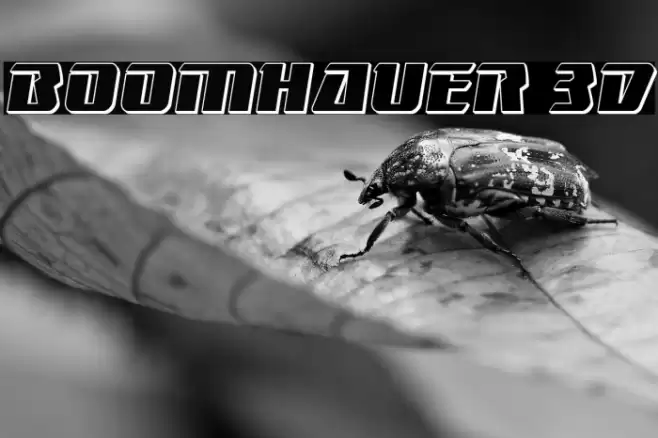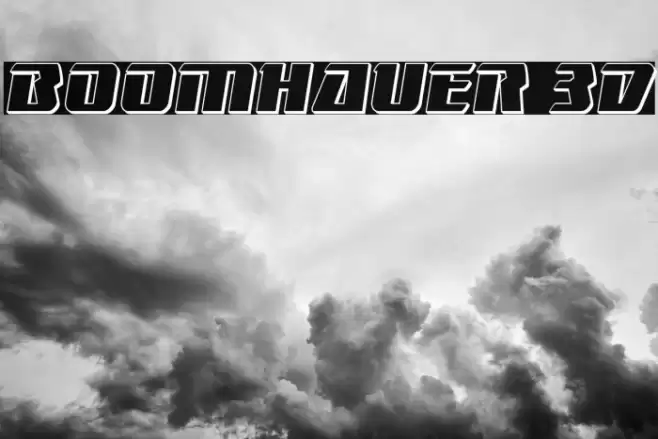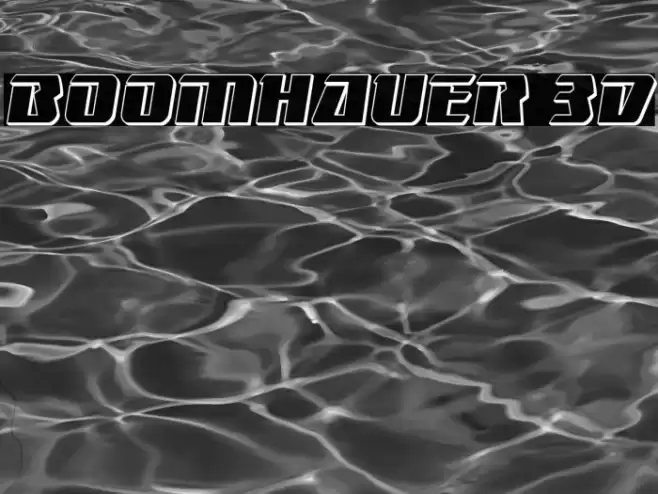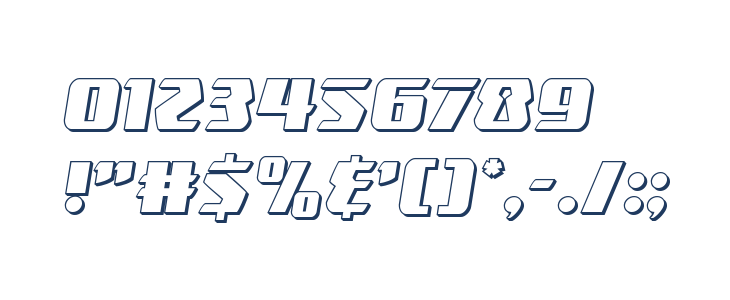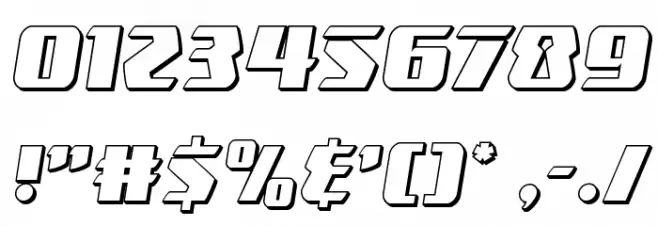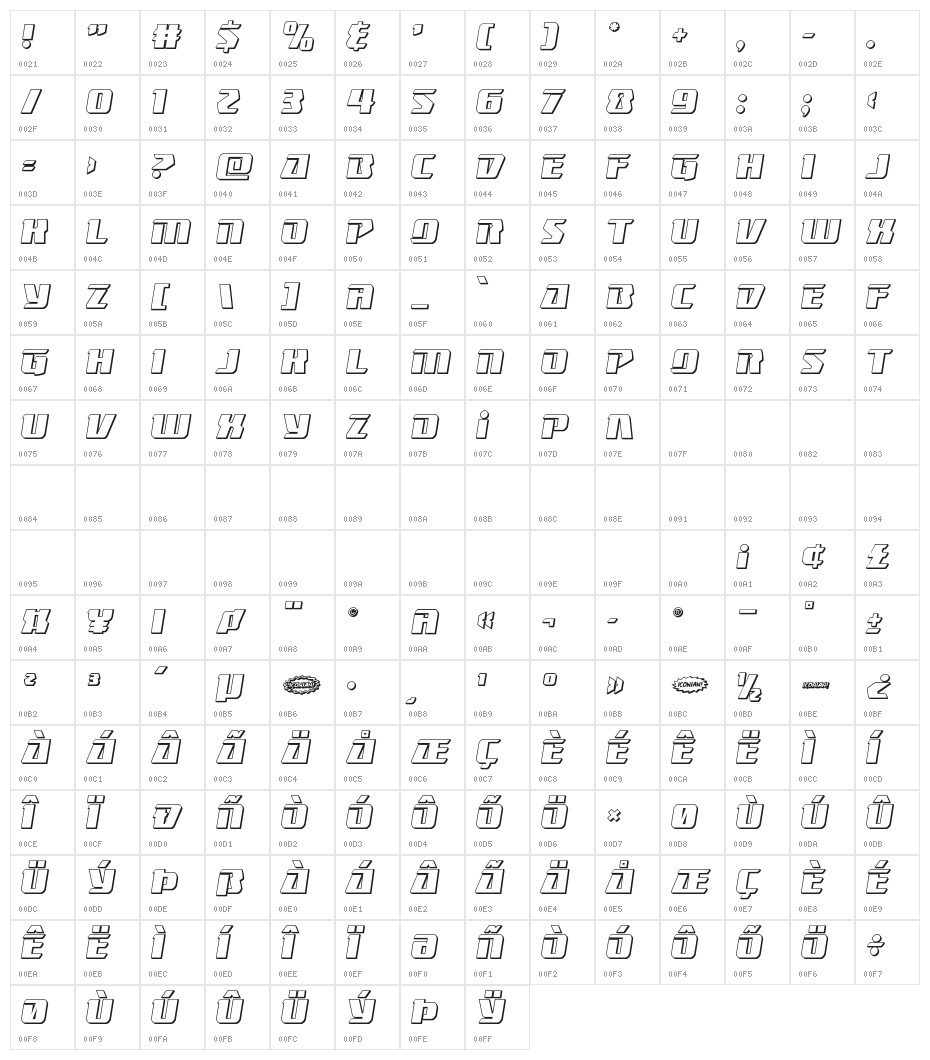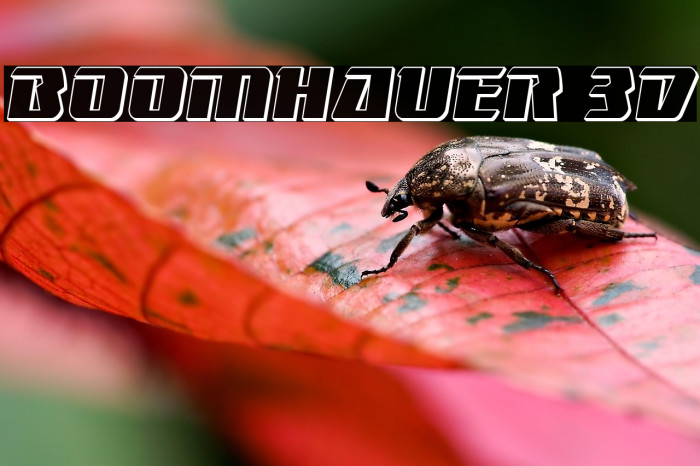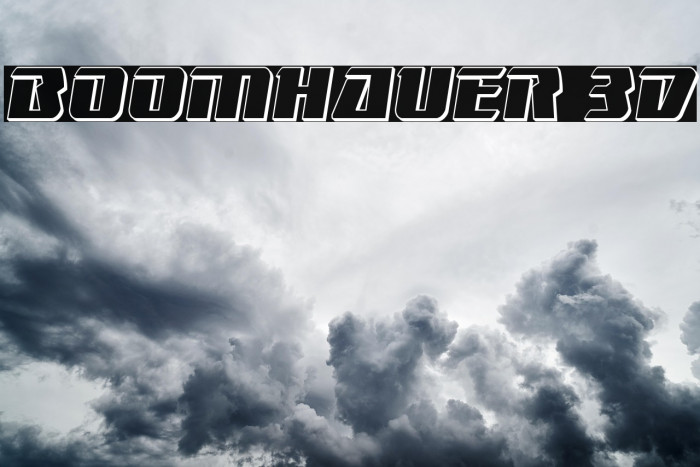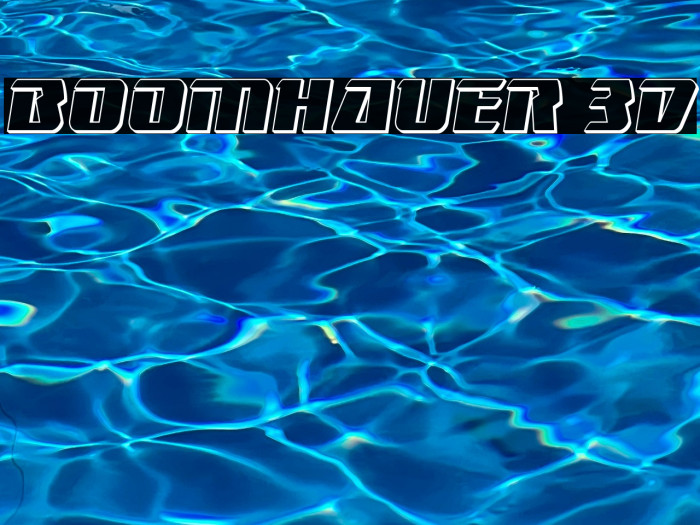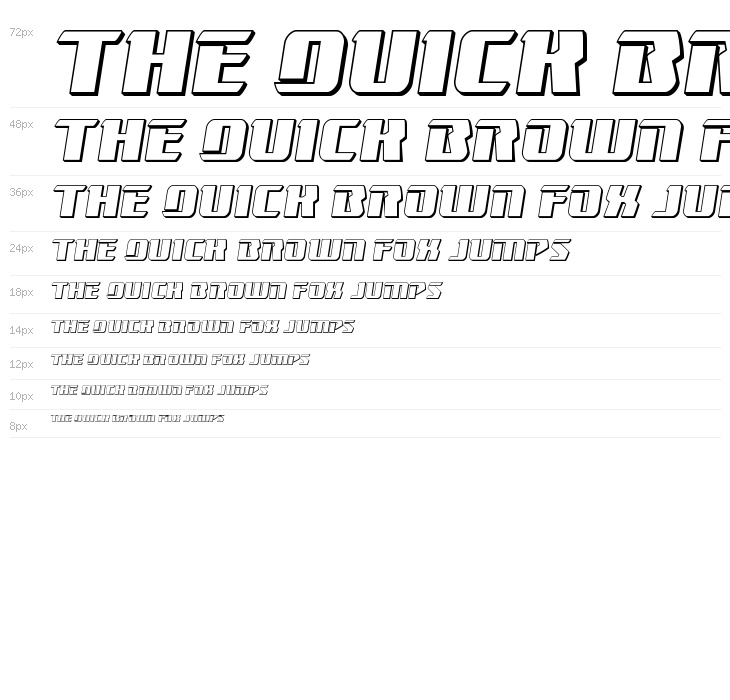
Boomhauer 3D Font
Boomhauer 3D Description
This font features a bold, three-dimensional outline style that gives each character a striking and dynamic appearance. The letters are uppercase and have a geometric, blocky structure with sharp angles and clean lines. The 3D effect is achieved through a consistent shadowing technique that adds depth and dimension. The numbers and special characters follow the same design principles, ensuring a cohesive look across all glyphs. This font is ideal for creating eye-catching headlines or logos that require a modern and impactful aesthetic.
A bold, 3D outline font with a geometric and dynamic style from Regular fonts.
- Proposed Projects: Ideal for use in branding, poster design, video game graphics, and any project requiring a modern, eye-catching typeface.